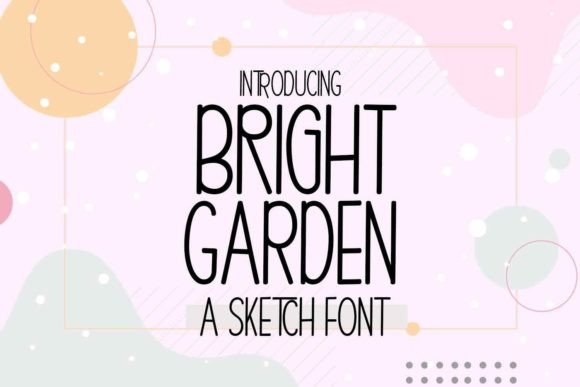
Introducing Bright Garden Font: A Timeless Handwritten Style for Your Creative Projects
In the world of typography, a good font can make all the difference in elevating your design to the next level. For designers, crafters, and DIY enthusiasts, finding the perfect font that combines elegance, uniqueness, and versatility can be a daunting task. However, if you’re looking for a handwritten font that exudes classic charm with a modern twist, look no further than Bright Garden Font. In this article, we’ll explore the features, benefits, and uses of Bright Garden Font, and why it’s an excellent addition to your typography collection.
What is Bright Garden Font?
Bright Garden Font is a beautiful, handwritten typeface that boasts a classic shape with a unique flair. Its elegant strokes, precise lettering, and balanced layout make it an ideal choice for a wide range of creative projects. Whether you’re designing a logo, creating greeting cards, or working on book prints, Bright Garden Font is sure to add a touch of sophistication and personality to your work.
Key Features of Bright Garden Font
So, what makes Bright Garden Font stand out from the rest? Here are some of its key features:
- Handwritten style: Bright Garden Font has a warm, handwritten feel that’s perfect for creating personal and inviting designs.
- Classic shape: The font’s classic shape ensures that it remains timeless and versatile, suitable for various design applications.
- Unique flair: Bright Garden Font’s unique twist sets it apart from other handwritten fonts, making it an excellent choice for designers looking for something distinctive.
- Elegant strokes: The font’s elegant strokes and precise lettering ensure that your designs look polished and professional.
- Balanced layout: The balanced layout of Bright Garden Font makes it easy to read and visually appealing.
Uses of Bright Garden Font
Bright Garden Font is an incredibly versatile typeface that can be used for a wide range of creative projects, including:
- Logos: Create a lasting impression with a unique and memorable logo that showcases your brand’s personality.
- Greeting cards: Add a personal touch to your greeting cards, making them special and heartfelt.
- Book prints: Use Bright Garden Font to add a touch of elegance to your book prints, making them stand out from the crowd.
- Stationery: Create beautiful stationery, including letterheads, invitations, and more.
- Digital designs: Use Bright Garden Font in your digital designs, such as social media graphics, blog posts, and website headers.
Benefits of Using Bright Garden Font
So, why should you choose Bright Garden Font for your creative projects? Here are some benefits:
- Unique designs: Bright Garden Font helps you create unique and eye-catching designs that set you apart from the competition.
- Elegance and sophistication: The font’s classic shape and elegant strokes add a touch of sophistication to your designs.
- Versatility: Bright Garden Font is suitable for various design applications, making it an excellent addition to your typography collection.
- Easy to read: The font’s balanced layout and clear lettering ensure that your designs are easy to read and understand.
In conclusion, Bright Garden Font is a beautiful, handwritten typeface that offers a unique blend of classic charm and modern flair. Its elegant strokes, precise lettering, and balanced layout make it an ideal choice for designers, crafters, and DIY enthusiasts looking to add a touch of sophistication to their creative projects. With its versatility, ease of use, and range of applications, Bright Garden Font is an excellent addition to your typography collection.